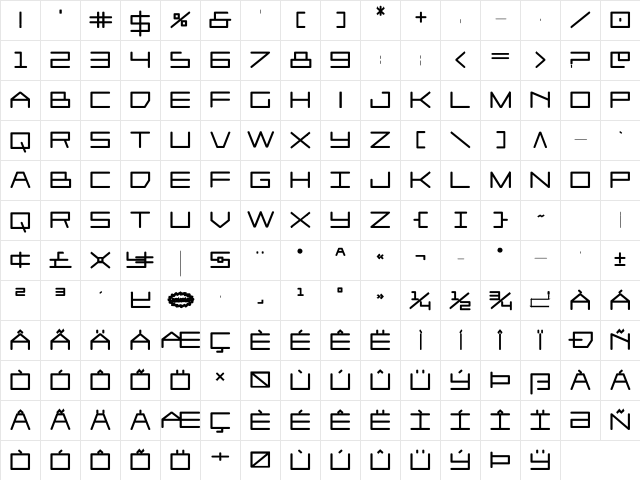
Complete Player 1 Up Black Black glyph index. Displaying only characters natively supported by Player 1 Up Black Black font.
Player 1 Up Black is a composed and adaptable typeface that performs quietly and consistently across a wide range of design contexts.